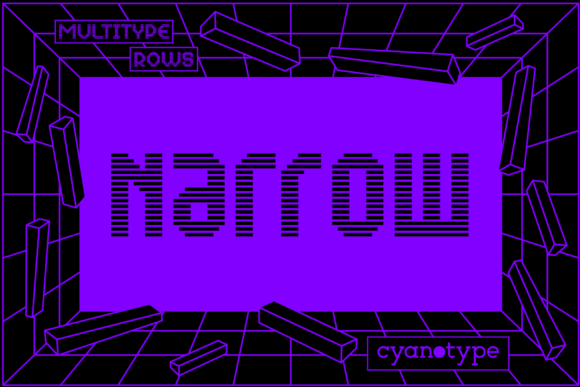
Meet MultiType Rows Narrow - the epitome of creativity, innovation, and modern design. This mesmerizing pixel art font, hailing from the display font family, is a masterpiece crafted by cyanotype, a visionary artist known for pushing the boundaries of digital art.
Immerse yourself in the world of pixel perfection with MultiType Rows Narrow. Its unique and captivating structure is guaranteed to leave a lasting impression on your audience. Picture your designs adorned with distorted yet trendy elements, exuding a captivating charm that commands attention.
With MultiType Rows Narrow, unleash your creative potential and delve into a realm of endless possibilities. This font is meticulously crafted to elevate your CV or cover letter to new heights, making you stand out from the crowd. Its unconventional style is sure to grab the attention of recruiters, leaving them eager to discover more about your skills and experience.
The font's PUA encoding makes it incredibly user-friendly, granting you effortless access to a treasure trove of glyphs and swashes. Experiment with a kaleidoscope of creative combinations to add depth and dimension to your designs.
Don't settle for ordinary when you can embrace the extraordinary. MultiType Rows Narrow is an avant-garde font, meticulously designed to redefine the boundaries of visual communication. Its distinctive pixelated aesthetic adds a touch of intrigue and playfulness to any project, leaving a lasting impact that resonates with your audience.
Embark on a journey of creativity and innovation with MultiType Rows Narrow. Seize the opportunity to own a font that embodies the essence of modern design and artistic excellence. Transform your digital creations into captivating masterpieces that leave an enduring impression. Stand out, be bold, and let MultiType Rows Narrow be your creative compass.